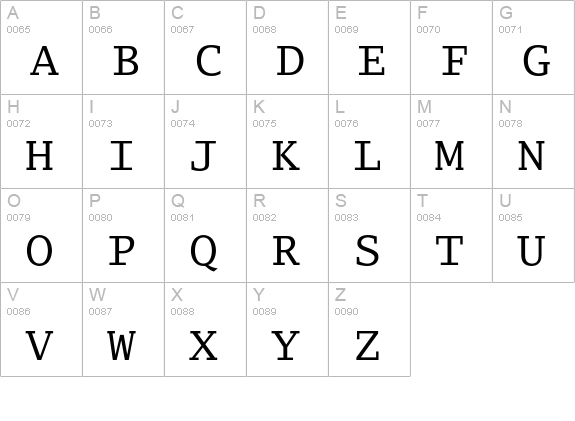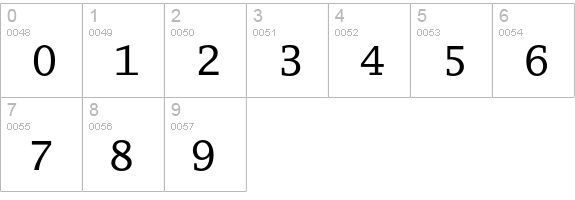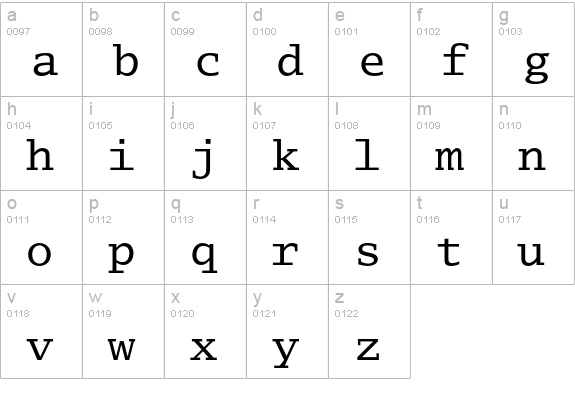
Lucida Typewriter font is a classic monospaced typeface that exudes a timeless elegance and sophistication. With its clean lines and distinctive characters, Lucida Typewriter is a versatile font that is perfect for a wide range of design projects. Whether you are creating a vintage-inspired poster, a sleek website layout, or a professional resume, Lucida Typewriter font will add a touch of refinement to your work. The best part? Lucida Typewriter font is available for free download at FontsMarket.com. This means that you can easily access this high-quality font without breaking the bank. So why wait? Add Lucida Typewriter font to your font library today and elevate your design projects to the next level.